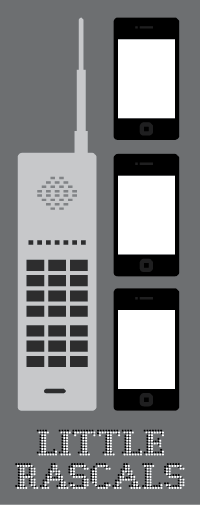
Rise of the Cellphone
by Pooja Saxena (anexasajoop)
*Updated to 26 characters* I started this Fontstruction with a blank canvas and blank mind, and decided to draw my phone (guess which one that is!) to just warm up. Before I knew it, the idea for the whole design was staring me right in the face. Hopping around the internet, looking for images and information on which phones to draw was great fun. Who knew that the first ‘personal communicator’ was the IBM South Bell Simon, which combined the features of a mobile phone, a pager, a PDA, and a fax machine. Yes, you read that right! The Simon was also nine inches tall.
Yeah, that’s great and funny! Love it
Great work! Such realistic cellphones!
Timeline of the evolution of cellphones built using this Fontstruction!
Thats great! Even some research was put into this. This is a contender for winning :D
Very nice work. Even the Sidekick is included. Great demo. 10/10
I think this picture is great, the big one. You will see it printed on many works about cellphones and mobiles soon, I'm sure. Great work!
There were a few typos in the old image (Thank you Elmoyenique for pointing out one!). Here's the corrected timeline, enjoy –
With all the research and hard work this font must have required, the 1st place is well deserved. Congratulations!
Congrats! :) anthropological work,
the design are great!
Wonderful idea